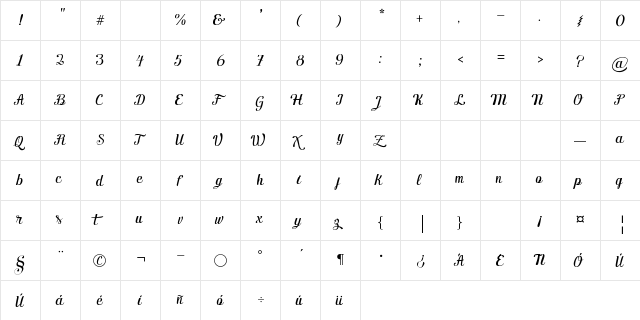
Ecuador Handscript Regular
Design Context for Ecuador Handscript Typeface
Ecuador Handscript brings a calligraphic fluidity to the page — its connecting strokes and expressive curves give it an unmistakably human quality.
Font Pairing: Combine Ecuador Handscript with a simple geometric sans for maximum contrast — the tension between flowing curves and clean structure is a classic typographic pairing.
Pro Tip: Pair Ecuador Handscript with a clean sans-serif for supporting text. The contrast between fluid script and geometric structure creates an elegant typographic hierarchy.